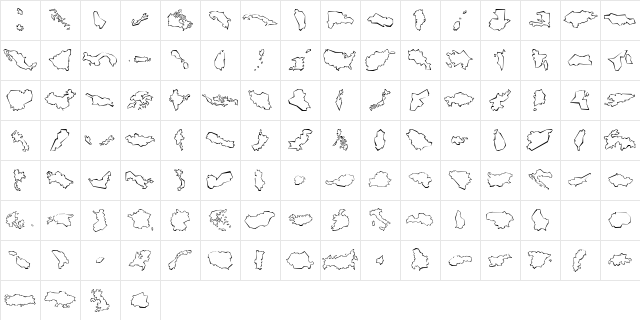
Mini Pics Global N Cutout Regular
Design Context for Mini Pics Global N Cutout
Mini Pics Global N Cutout is a composed and adaptable typeface that performs quietly and consistently across a wide range of design contexts.